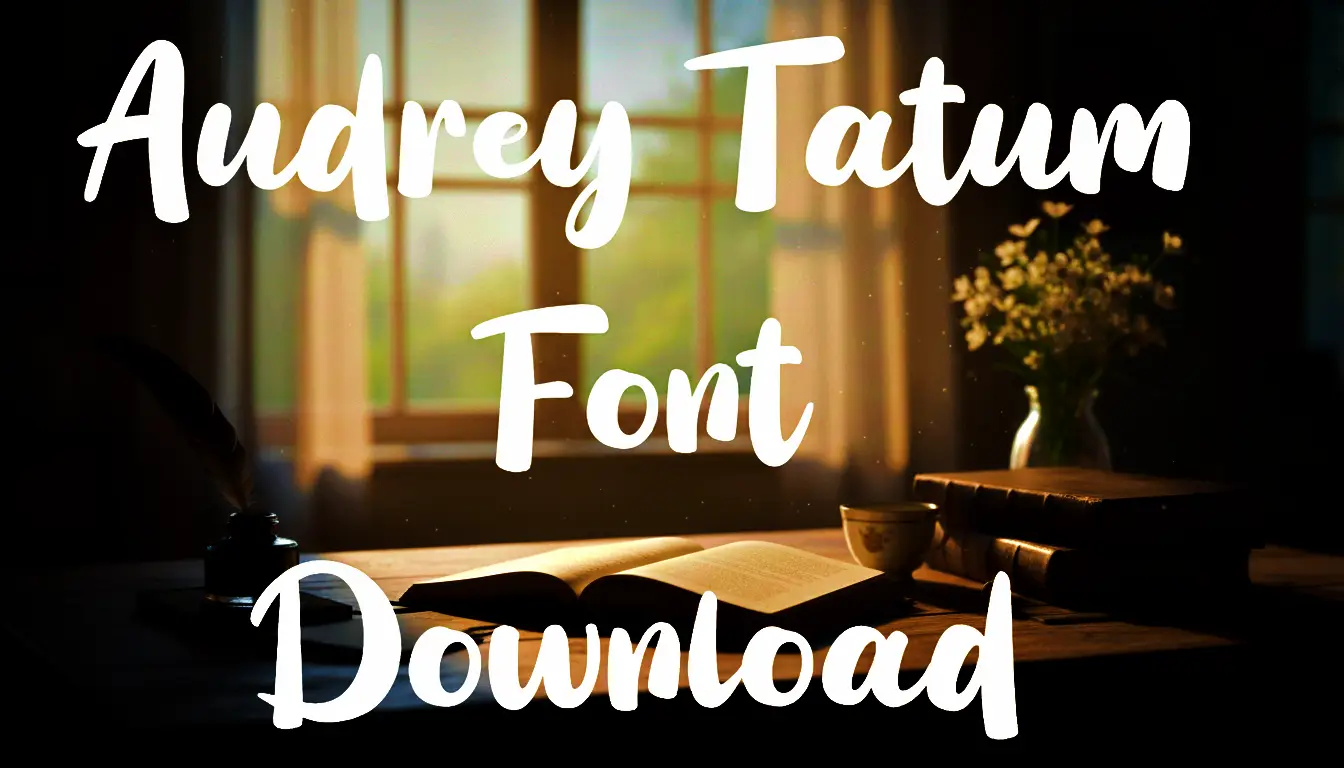
Audrey Tatum Font
Audrey Tatum
Audrey Tatum is a script font designed by Akhmad Reza Fauzi and published by Grezline Studio. Its flowing, pen-made letters give names and short phrases a personal, polished look. It's a free download, and you can try it with your own text in the preview above first.
What You Can Type With Audrey Tatum
You get every letter from A to Z in both cases and all the numbers from 0 to 9, which means Audrey Tatum can handle full sentences, dates and prices. Common punctuation such as &, !, ? and @ is included as well. It also has the accented letters you need for Spanish, French, German, Portuguese and Italian.
Where Audrey Tatum Works Best
Designers usually reach for fonts like Audrey Tatum when they're making wedding invitations, logos and signature-style headings. Script fonts read best in short bursts, so keep it to names, titles and one-line quotes. Skip all caps: script capitals are drawn to start a word, not to fill one.
Does Audrey Tatum support accented letters?
Yes. Audrey Tatum includes the accented letters needed for Spanish, French, German, Portuguese and Italian, so it works for more than just English.